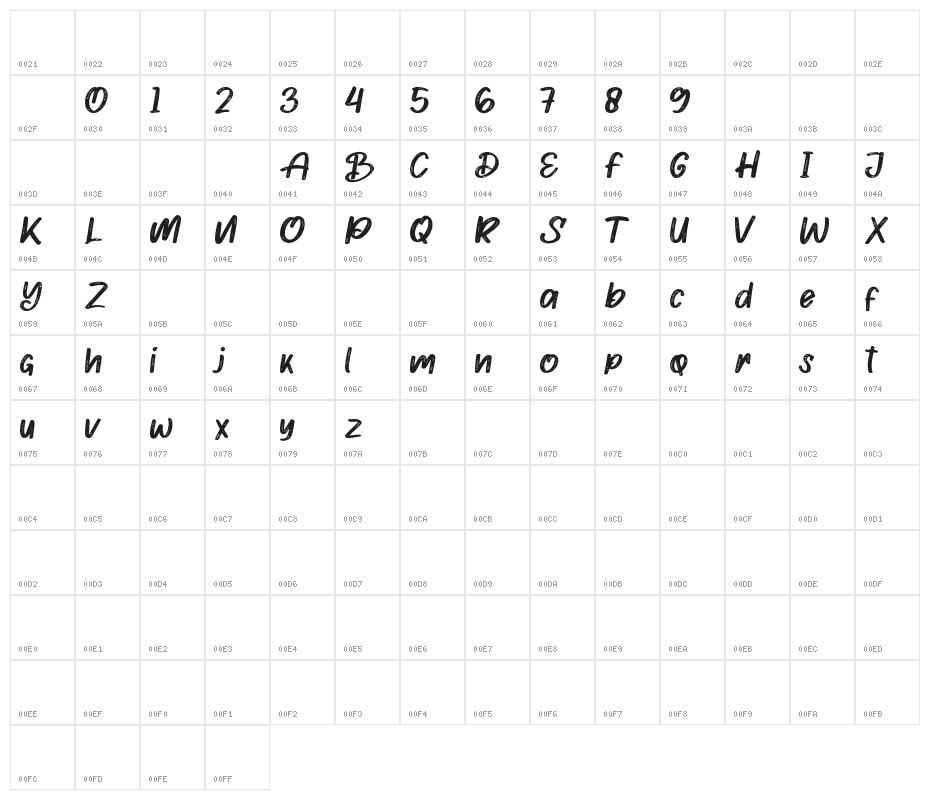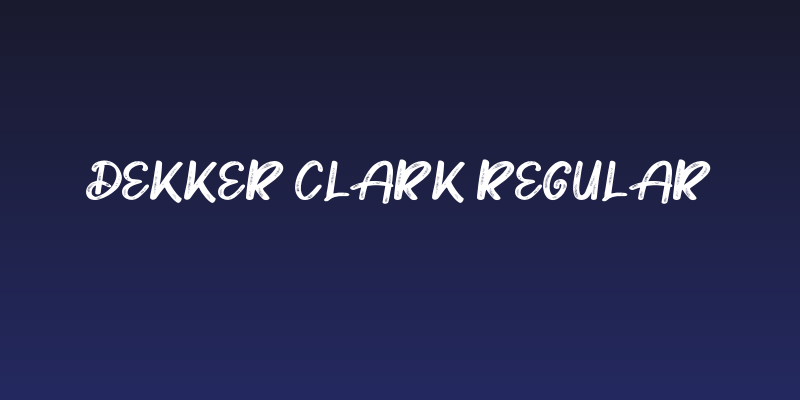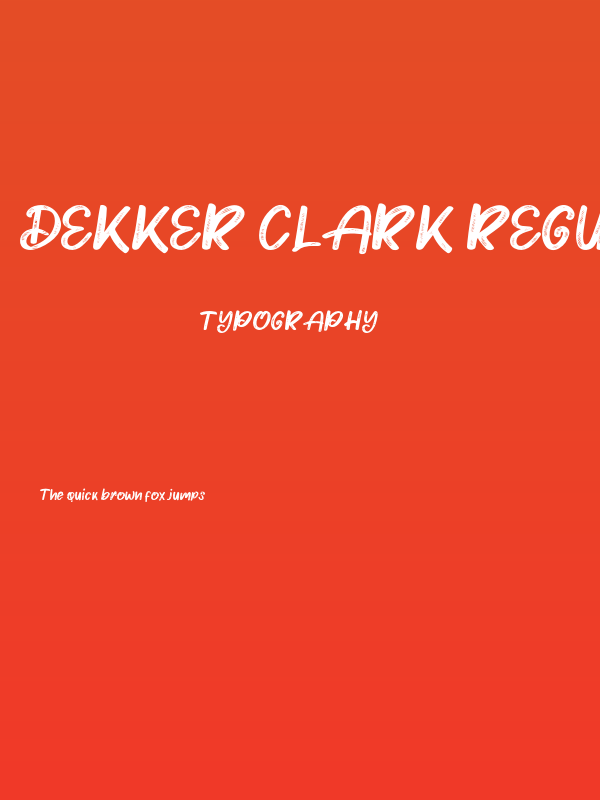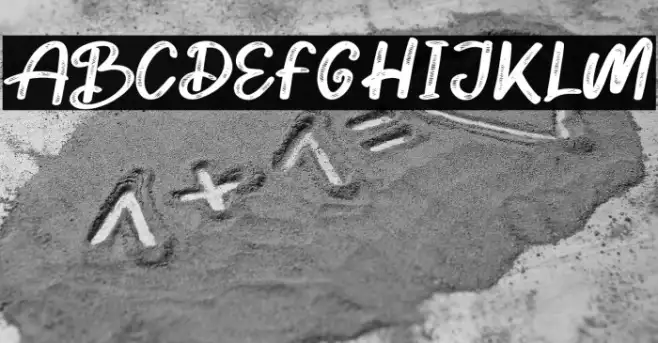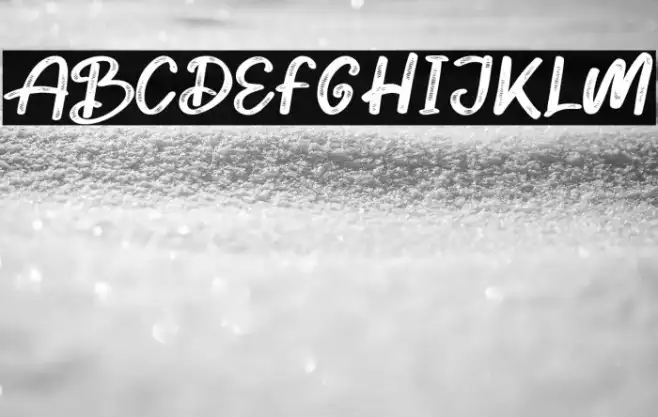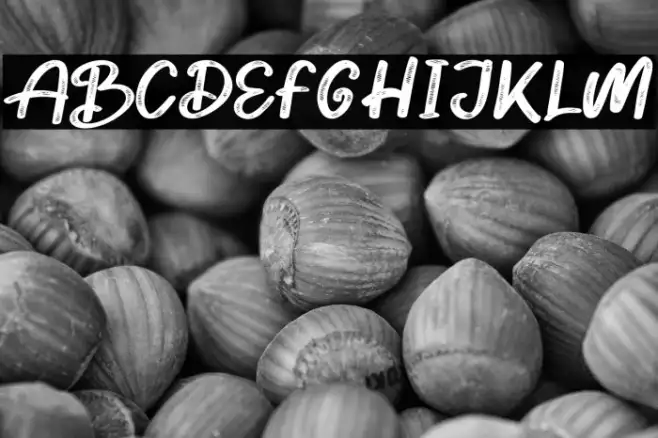
Dekker clark Regular Font
Dekker clark Regular Description
This font features a bold, handwritten style with a playful and energetic appearance. The letters are characterized by thick strokes and a slightly slanted orientation, giving them a dynamic and informal look. Each character has a unique, hand-drawn quality, with subtle variations in line thickness that add to its charm. The font maintains a consistent baseline, while the rounded edges and smooth curves enhance its friendly and approachable feel. The numerals and special characters are crafted with the same attention to detail, ensuring a cohesive and harmonious design throughout.
| Proposed Projects | Ideal for greeting cards, playful branding, children's books, and social media graphics. |